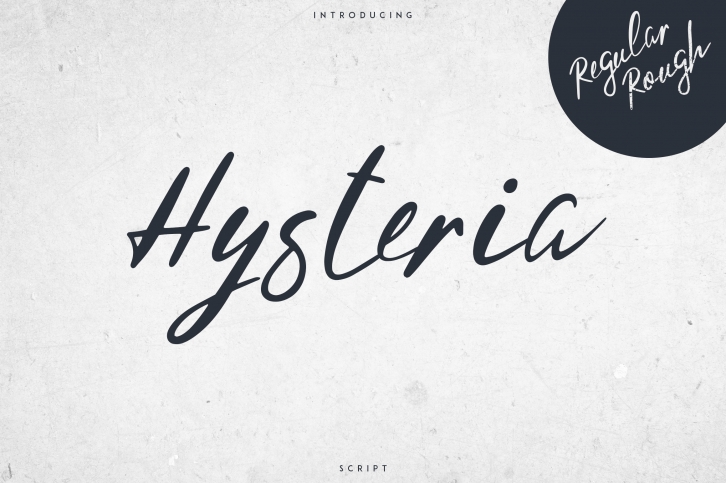
Hysteria Script is a beautiful font that was designed by VPcreativeshop. It's a great choice for designers and creatives who need such a font. It was released on February 12, 2019 and the file size is 3.91 MB. Hysteria Script may give a more youthful, expressive and casual look to your project. It is a very beautiful, refined, elegant, and high-quality font.